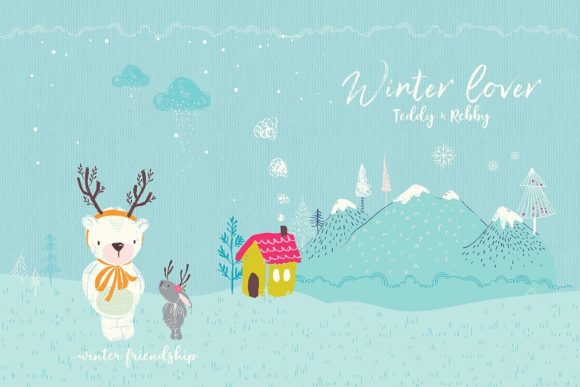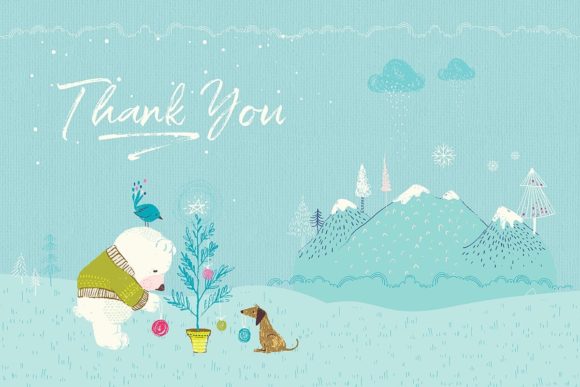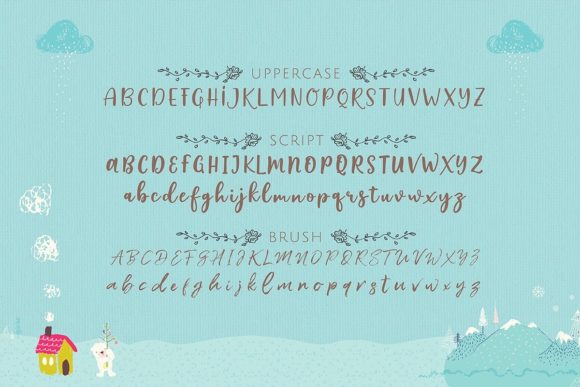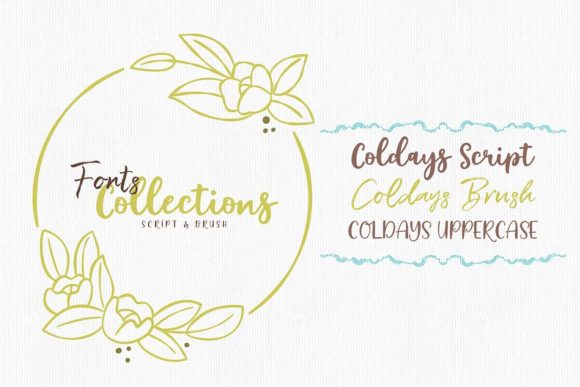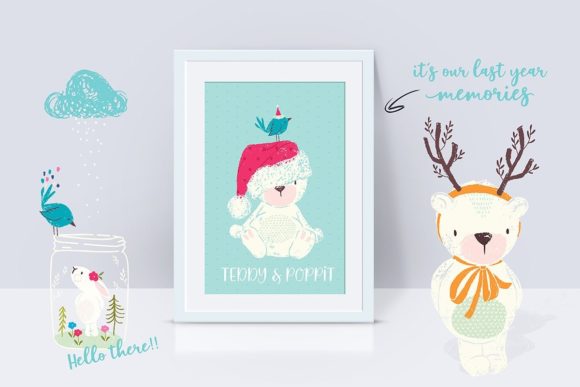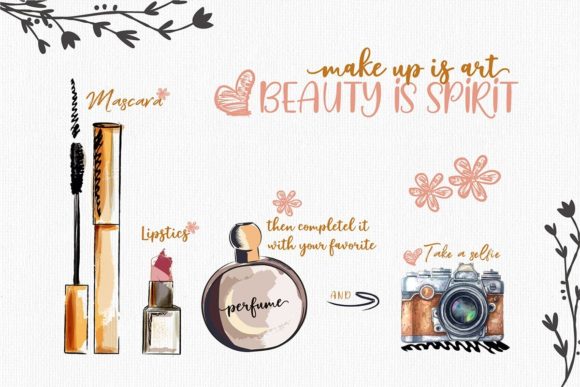
The Perfect Font for Your Next Design Project: Coldays
Have you ever been in the middle of a design project, and suddenly, you’re stuck on finding the perfect font? I recall a particularly frustrating experience while working on a wedding invitation design for a client. The invitation needed to convey elegance, warmth, and a touch of whimsy, but every font I tried seemed to fall flat. That’s when I discovered Coldays, a lovely and friendly font that has since become a staple in my design toolkit.
A Personal Review of Coldays
Coldays is a beautiful font that looks stunning on wedding invitations, thank you cards, quotes, greeting cards, logos, business cards, and every other design that needs a customized touch. Here are some things I love about Coldays:
- ✨ Elegant and sophisticated, yet friendly and approachable
- ✅ PUA encoded, making it easy to access all glyphs and swashes
- 💕 Perfect for designs that require a touch of warmth and personality
- 🎉 Highly versatile, suitable for a wide range of design projects
While Coldays is an excellent font, it’s not without its quirks. Here are a few things to keep in mind:
- 🤔 Some users may find the font a bit too ornate for certain projects
- ⚠️ May not be suitable for very small font sizes or body text
The Story Behind Coldays
Coldays was designed by a team of typographers who wanted to create a font that would bring warmth and personality to designs. Inspired by traditional calligraphy and handwriting, Coldays is a unique blend of elegance and friendliness. The font has quickly become popular among designers and crafters who appreciate its versatility and beauty.
| What is Coldays? | Coldays is a lovely and friendly font perfect for designs that require a touch of elegance and warmth. |
| Is Coldays PUA encoded? | Yes, Coldays is PUA encoded, making it easy to access all glyphs and swashes. |